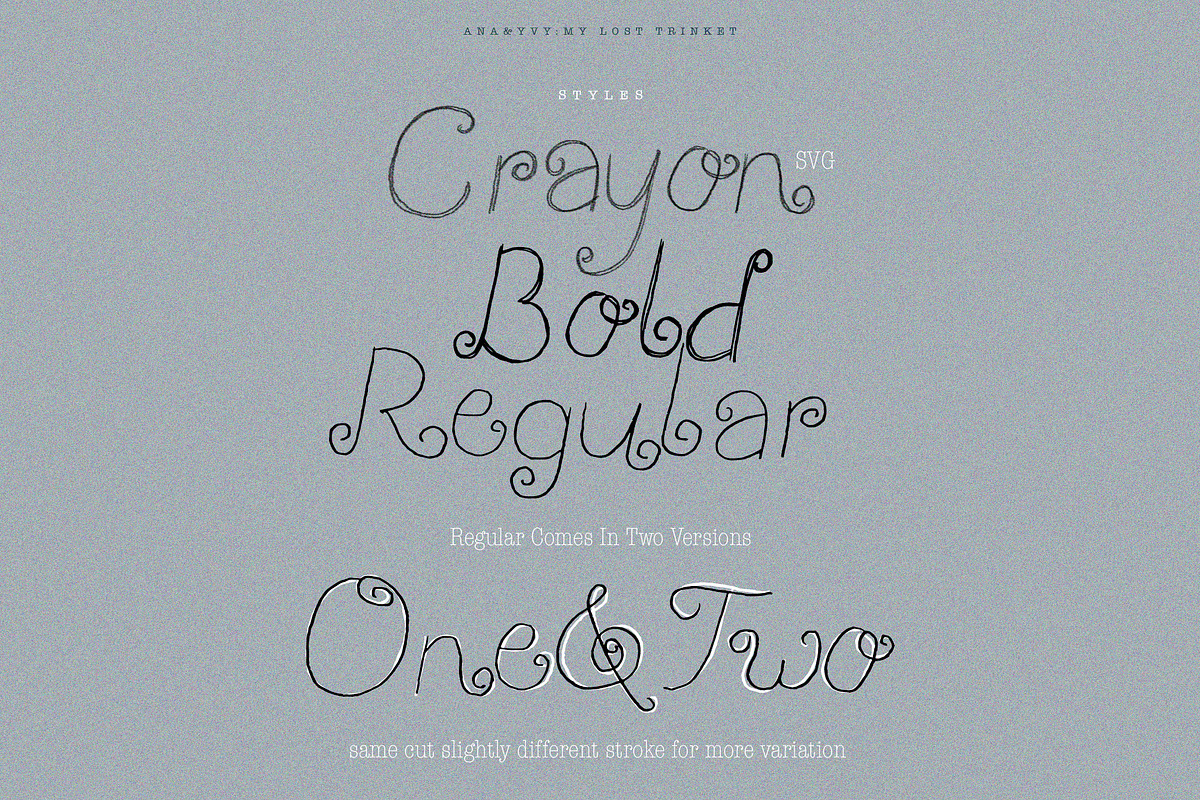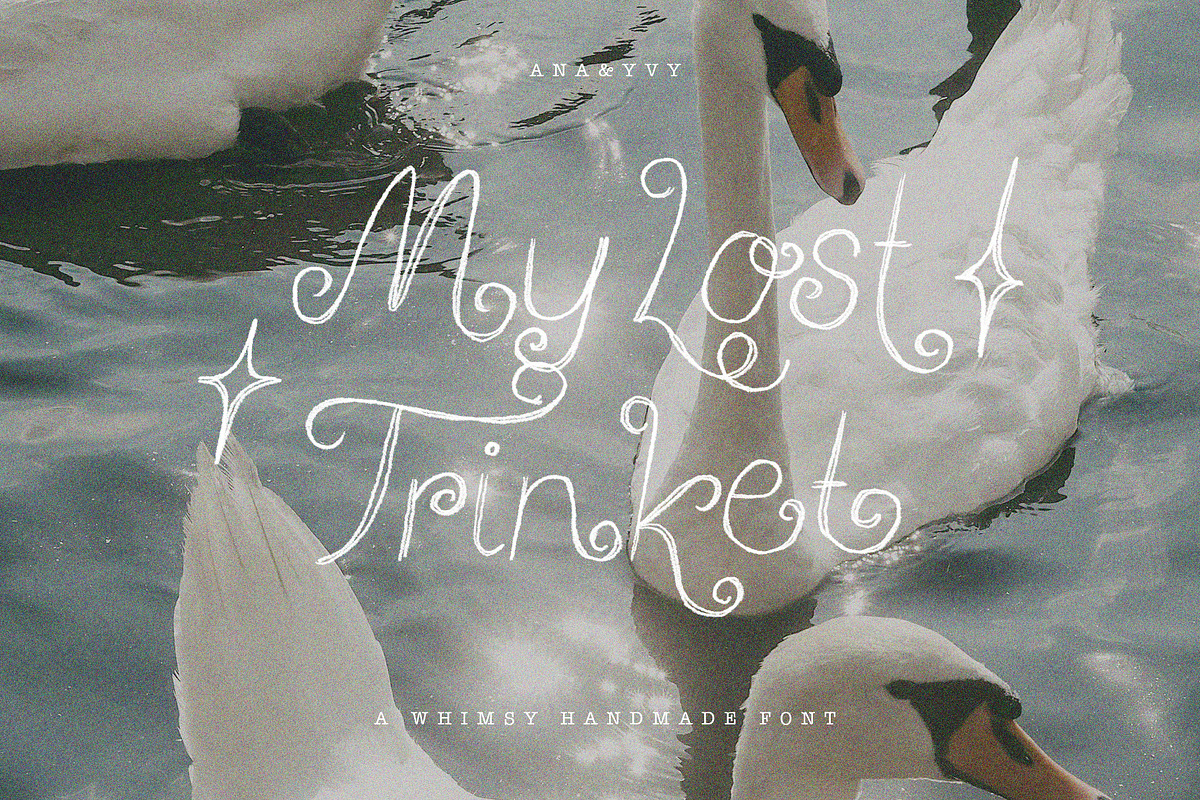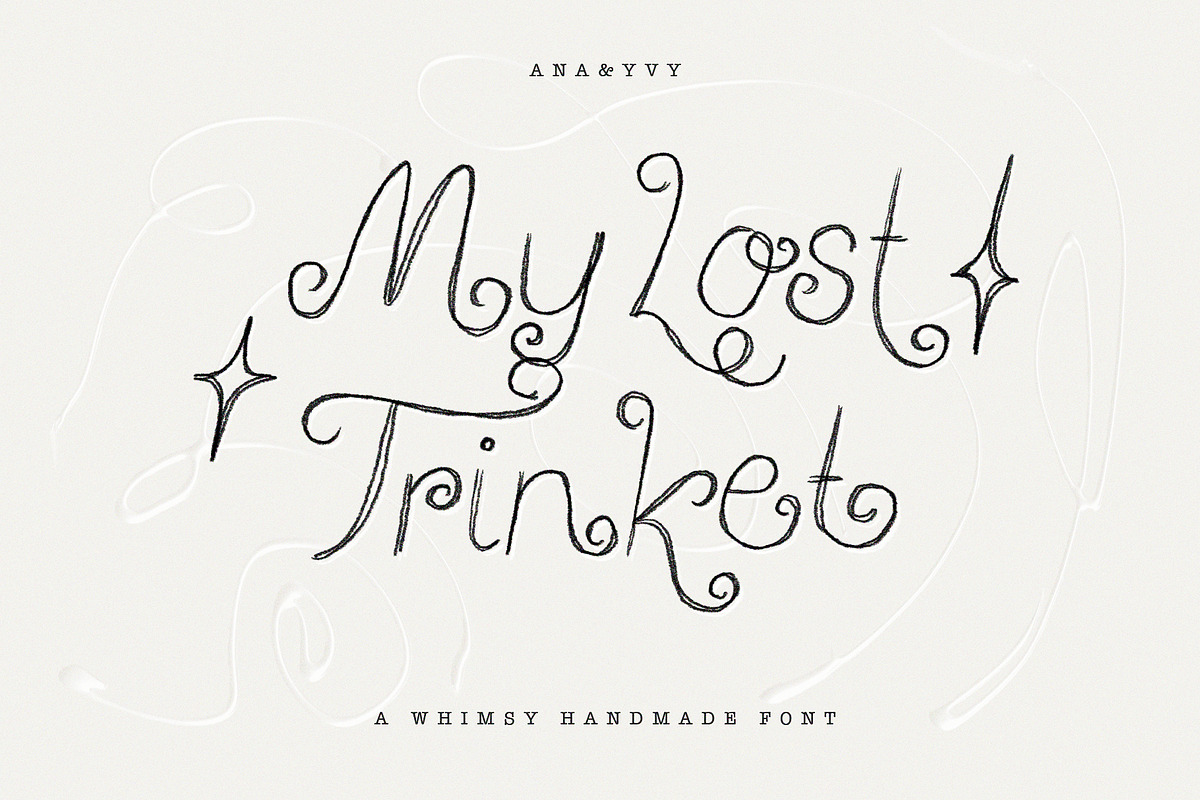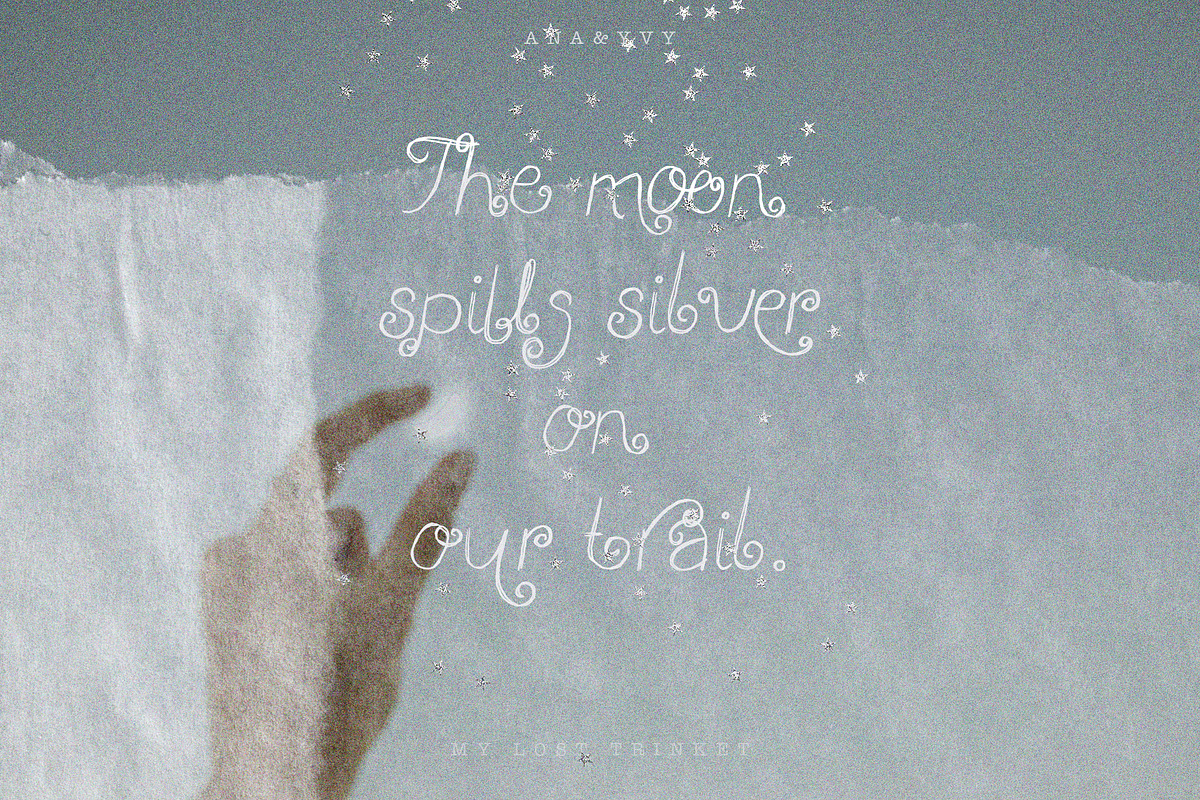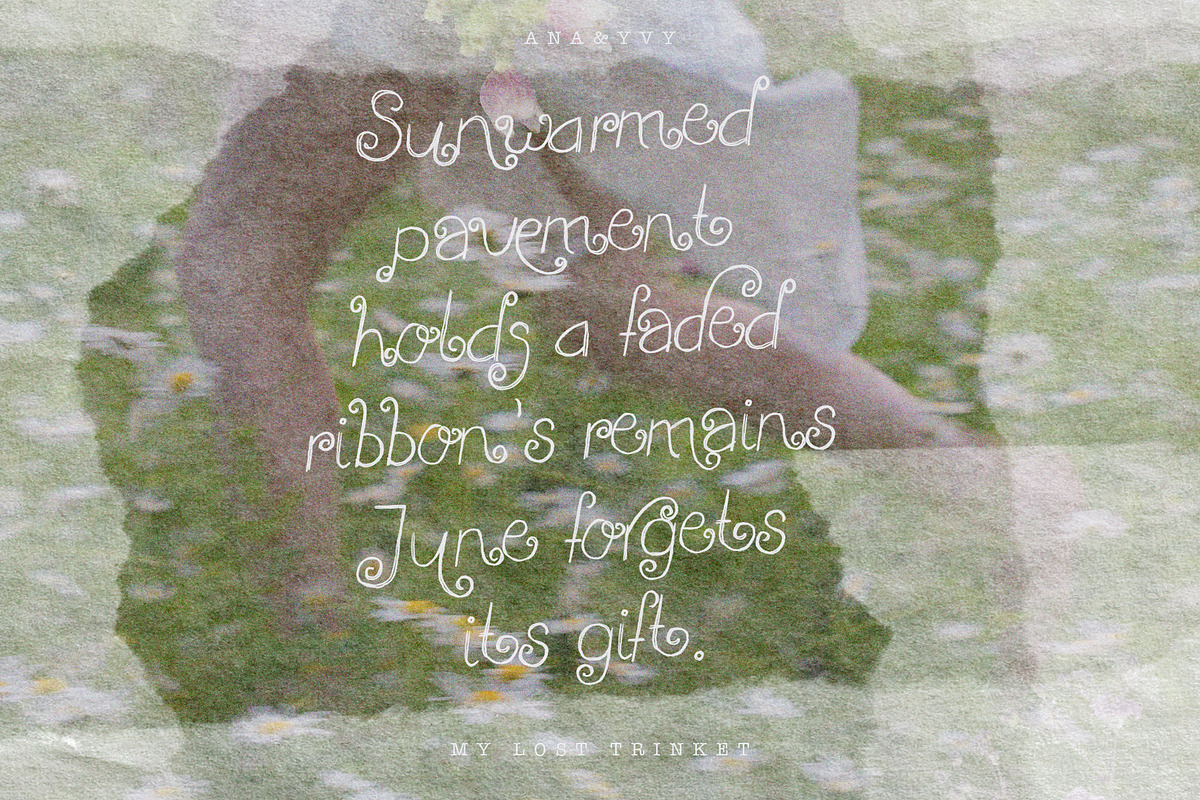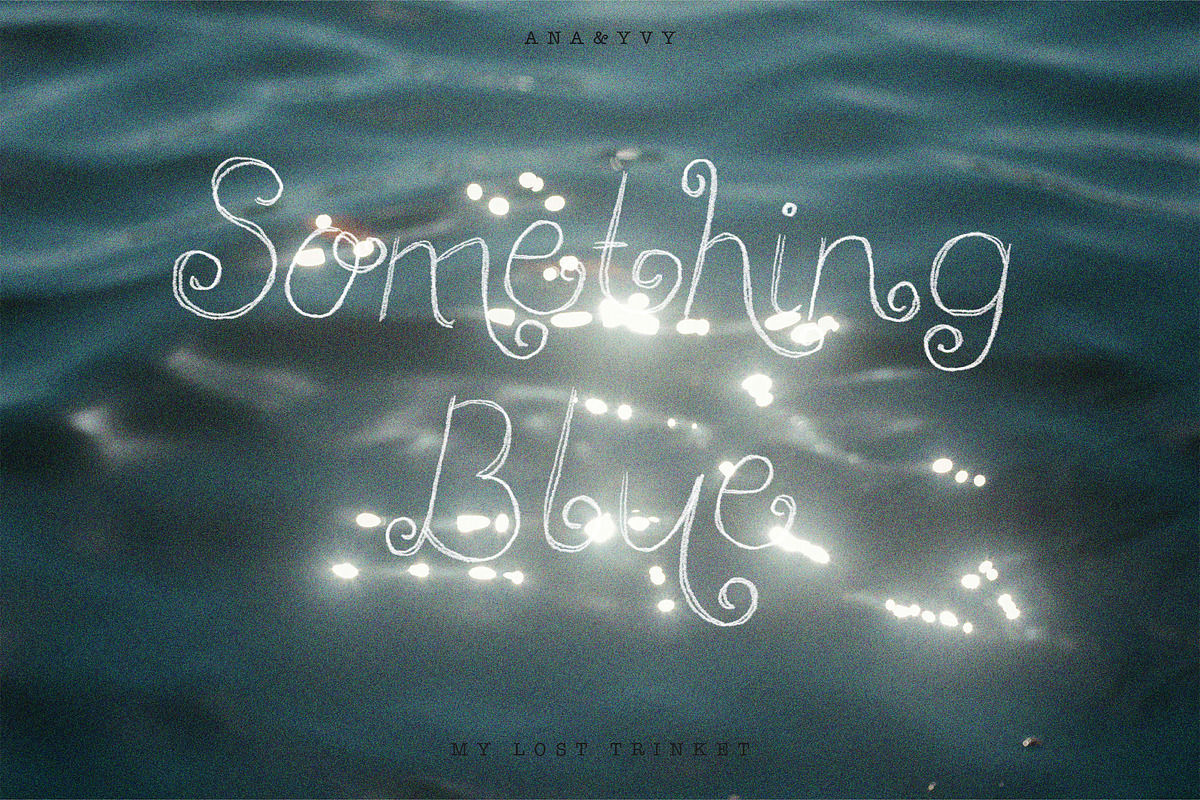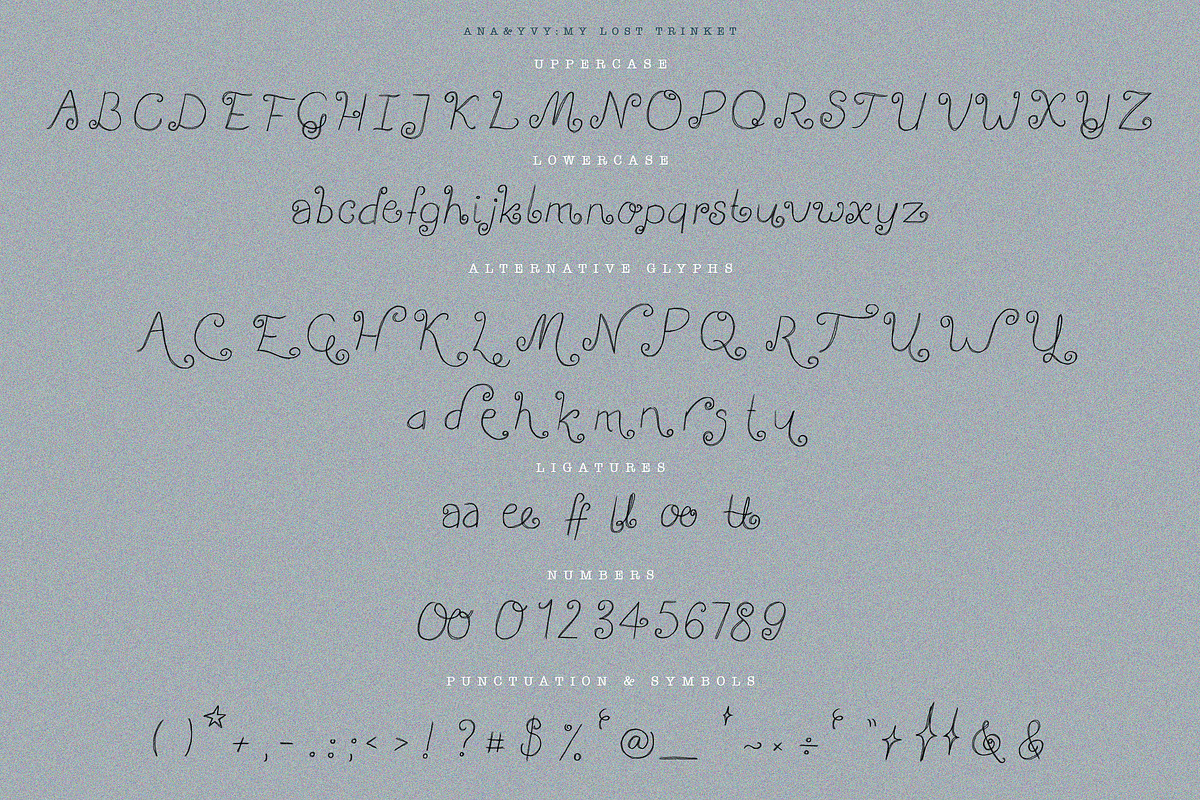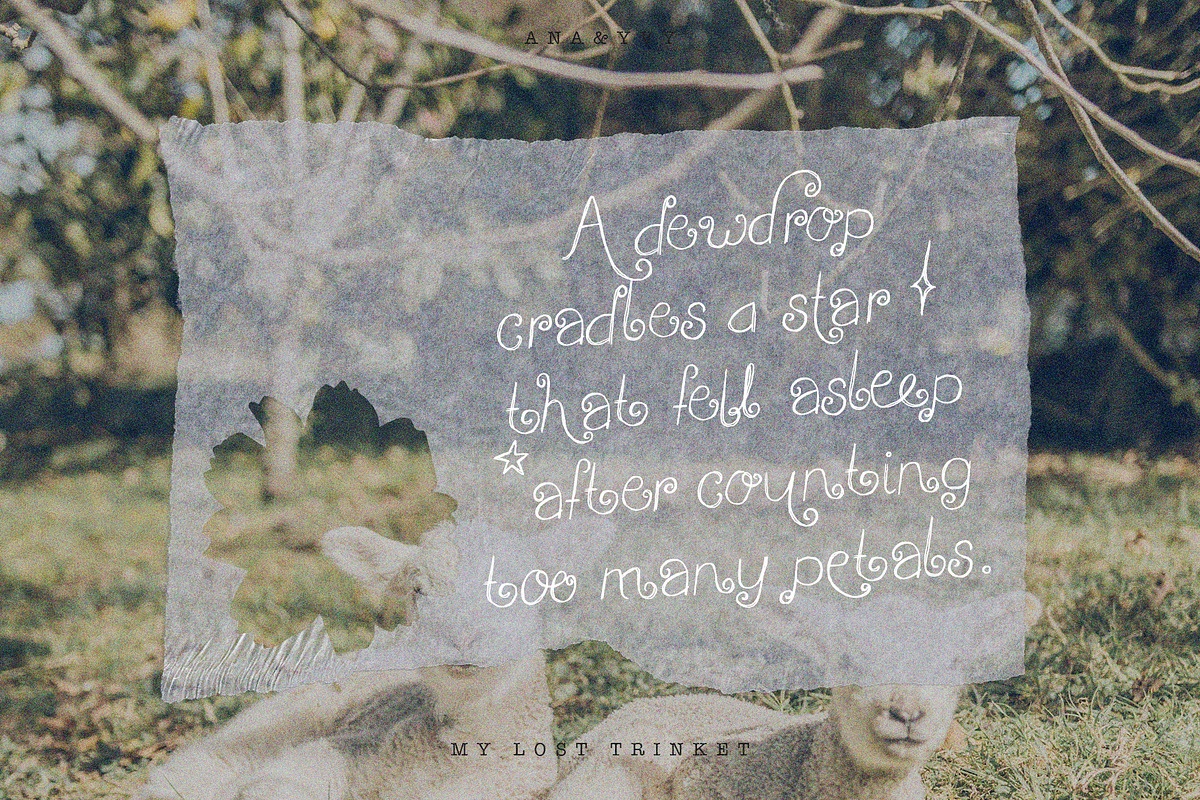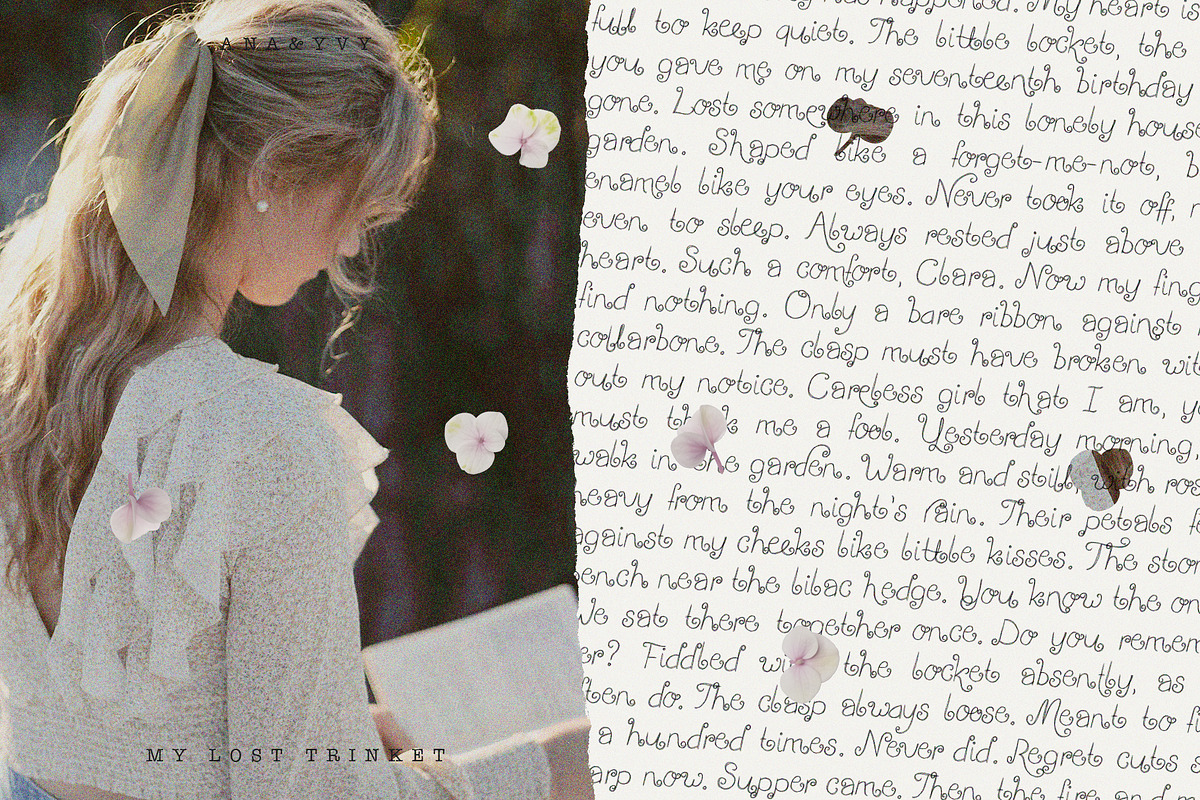
My Lost Trinket | Whimsy Curly Font
My Lost Trinket is a hand-drawn and whimsical curly font. A playful curvy and handmade aesthetic with alternate glyphs and several style options gives this creative collection an unique and natural handwritten look with subtle irregularities. Playful curls, a charming crayon look and feel as well as a trending double lined version makes this collection even more unique and outstanding.
Perfect for everything whimsy, quotes and romantic or even playful branding.